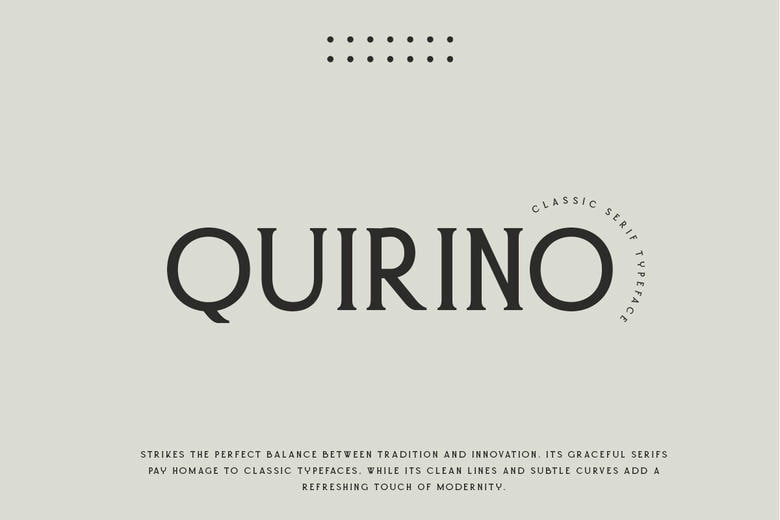
Quirino Font
Quirino is a classical serif font that has managed to incorporate a modern touch to give an elegant and multifaceted design. Its clean lines and exact curves make it look clear and sophisticated and make it a fitting solution to a whole plethora of design work.
The ideal typeface is the one that can be easily blended into its traditional and contemporary peculiarities and that is precisely what Quirino is offering to those, who want to find a font that is unobtrusively elegant. Quirino brings your writing to a higher plane of eternal but new appearance, whether it is branding, editorial design, web content, or any other creative project.
Quirino Serif Font